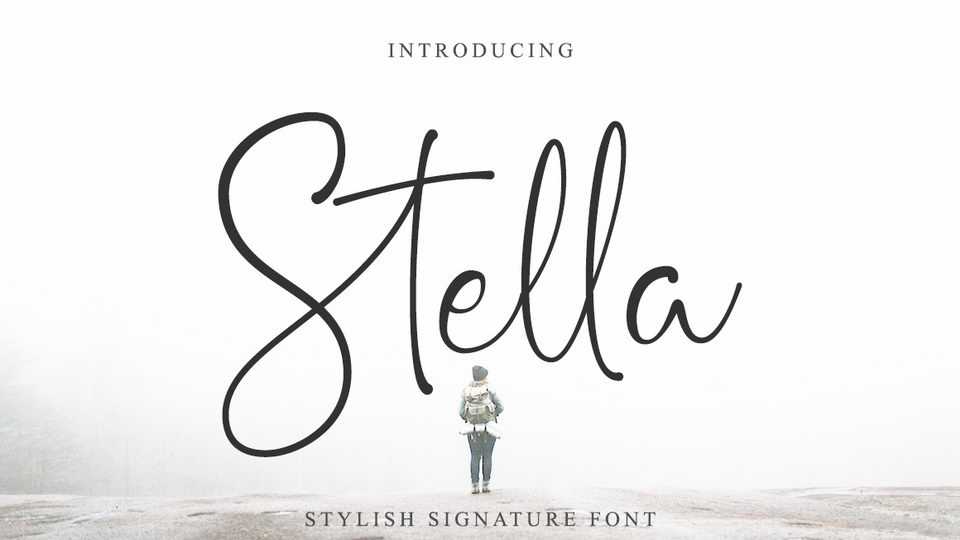
Download Stella font, a signature script with a natural handwritten style that brings a beautiful and chic look. Stella script is best used for logotype, branding, wedding, and quotes.
Designer: Suby Studio